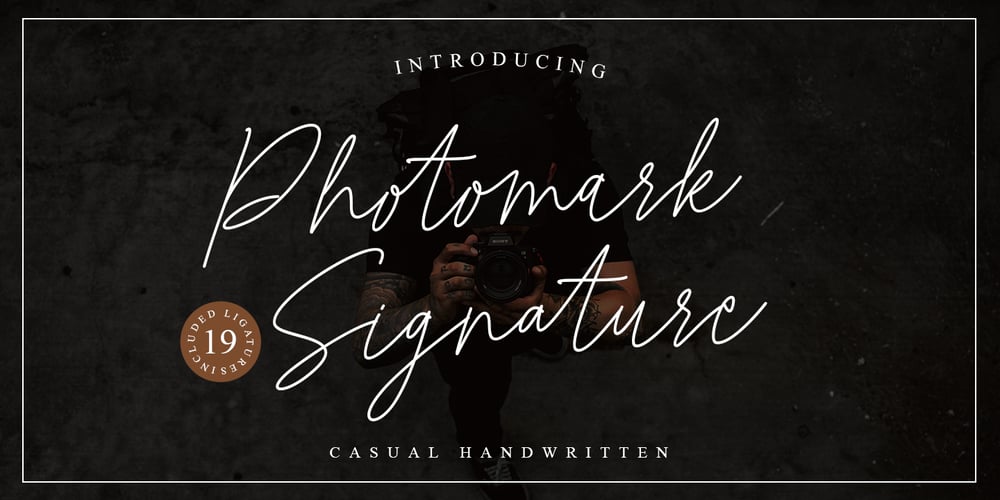
Photomark Signature
Photomark Signature font
Photomark Signature Font Family was designed by Muhammad Mujibulloh and published by MJB Letters. Photomark Signature contains 1 styles and family package options. Photomark Signature is a Casual and Stylish Signature font, it has unique style in uppercase and lowercase character and very perfect for branding, signature, card designs, wedding designs, watermarks, logos and other.Photomark Signature includes full set of uppercase and lowercase letters, numeral, punctuations and ligatures.Included in this set: Works on PC & Mac Simple installations Accessible in the Adobe Illustrator, Adobe Photoshop, Adobe InDesign, even work on Microsoft Word. PUA Encoded Characters – Fully accessible without additional design software